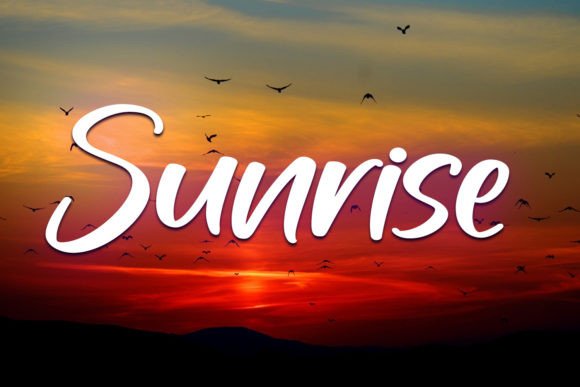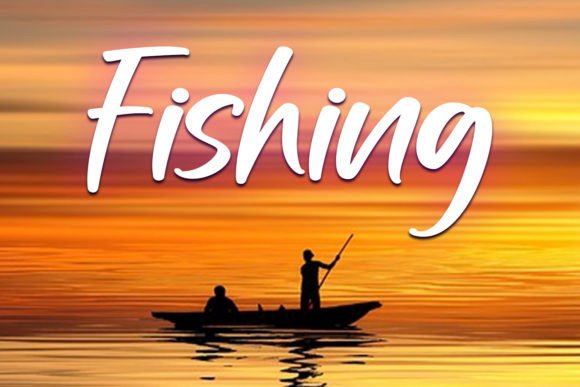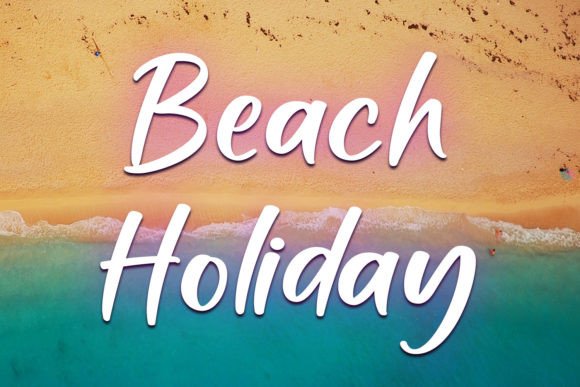
Introduction to Outtine Font
As a designer, there’s nothing quite like that moment when inspiration strikes and a beautiful idea takes shape. You’re working on a project, and suddenly, the perfect font pops into your head. For many creatives, that font is the Outtine Font. With its unique blend of elegance and playfulness, Outtine Font is a game-changer for any design project.
Whether you’re crafting a stunning YouTube banner, designing a wedding invitation, or creating a set of ID cards, Outtine Font is the perfect addition to take your design to the next level. Its high quality and versatility make it a valuable resource for any designer looking to elevate their creative project. And the best part? You can download it for free, giving you the freedom to experiment and explore new ideas without breaking the bank.
So, what makes Outtine Font so special? In this article, we’ll delve into the world of this amazing font and explore its many uses, from design projects to everyday crafting. Let’s dive in and discover why Outtine Font is a must-have for any designer looking for a high-quality, free download that’s sure to impress.
Key Features of Outtine Font
- High-quality design for creative projects, available as a free download for designers and artists.
- Outtine Font offers a unique and modern aesthetic, ideal for use as a design resource in various creative projects.
- Features a transparent background, making it easy to layer over other design elements without visual clutter.
- Available in a single weight, perfect for projects requiring a clean and minimalist look.
Honest Review: Outtine Font
As a designer, I’m always on the lookout for high-quality fonts to elevate my creative projects. Recently, I stumbled upon the Outtine Font, and I must say, it’s been a great addition to my design resource library.
- ✨ High-quality design that’s perfect for modern and minimalist designs.
- ✨ Offers a transparent background option, making it versatile for use on various backgrounds.
- ⚠️ Limited character set, which might not be suitable for extended texts.
- ⚠️ Not as versatile as some other fonts, which might limit its use in certain creative projects.
Overall, I’m impressed with the Outtine Font. Its high-quality design and transparent background make it a great choice for modern designs. While it has some limitations, I believe it’s a valuable addition to any designer’s library. If you’re looking for a free font to elevate your creative projects, I’d definitely recommend giving the Outtine Font a try.
Tips for Getting the Most Out of Outtine Font
To get the most out of the Outtine Font, use it with a transparent background to create visually appealing designs. Experiment with different font sizes and styles to add depth and interest to your project.
The Outtine Font is perfect for:
Alternatives to Outtine Font
Open Sans Font is a high-quality, open-source sans-serif font suitable for a wide range of creative projects. It’s available for free download and is a popular design resource.
When to use: Open Sans Font is ideal for body text, headings, and titles in digital design projects, such as websites and mobile apps.
How it compares to Outtine Font: Open Sans Font is more versatile and has a wider range of weights, making it a better choice for complex designs.
Lato Font is a modern sans-serif font that offers a high level of flexibility and customization options. It’s a popular choice for designers looking for a free download with a transparent background.
When to use: Lato Font is suitable for a variety of creative projects, including logos, branding materials, and digital products.
How it compares to Outtine Font: Lato Font has a more elegant and refined feel compared to Outtine Font, making it a better choice for premium designs.